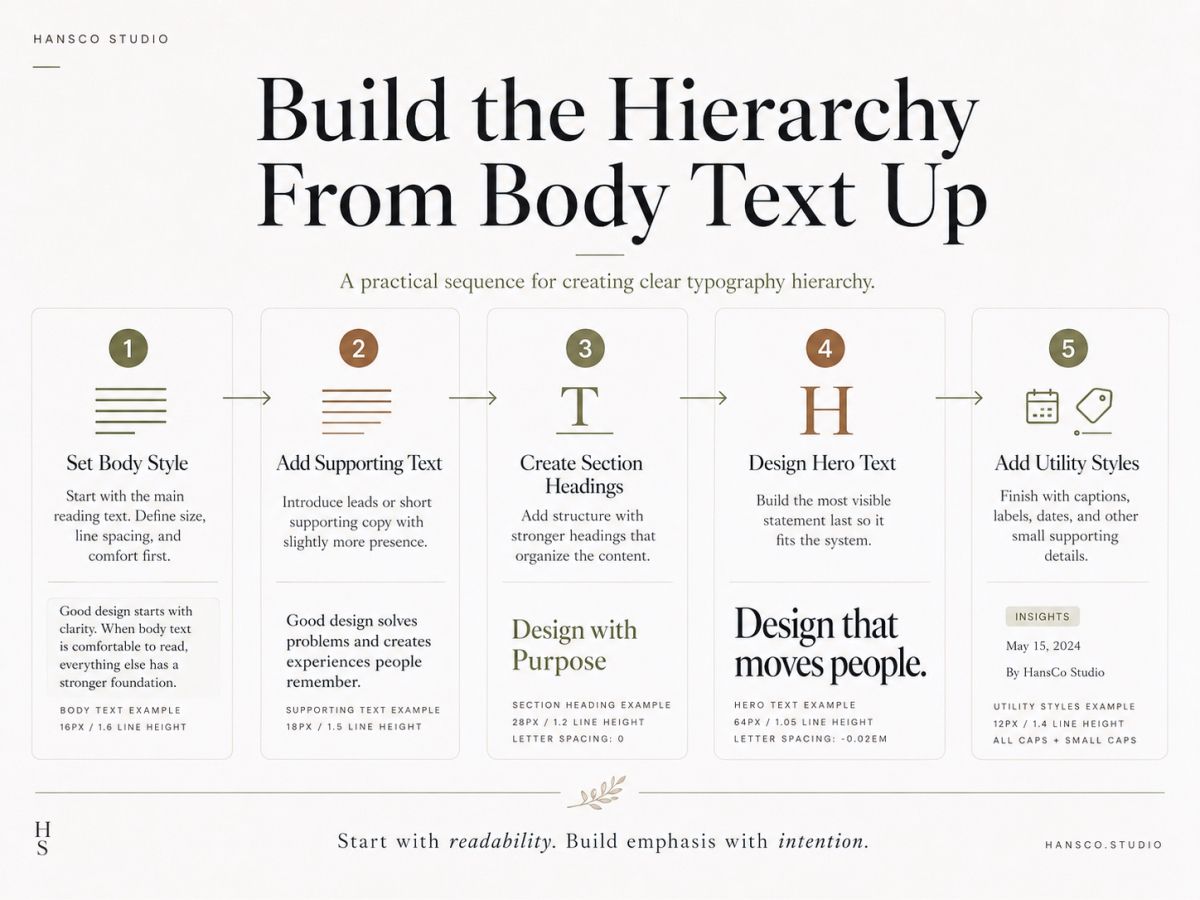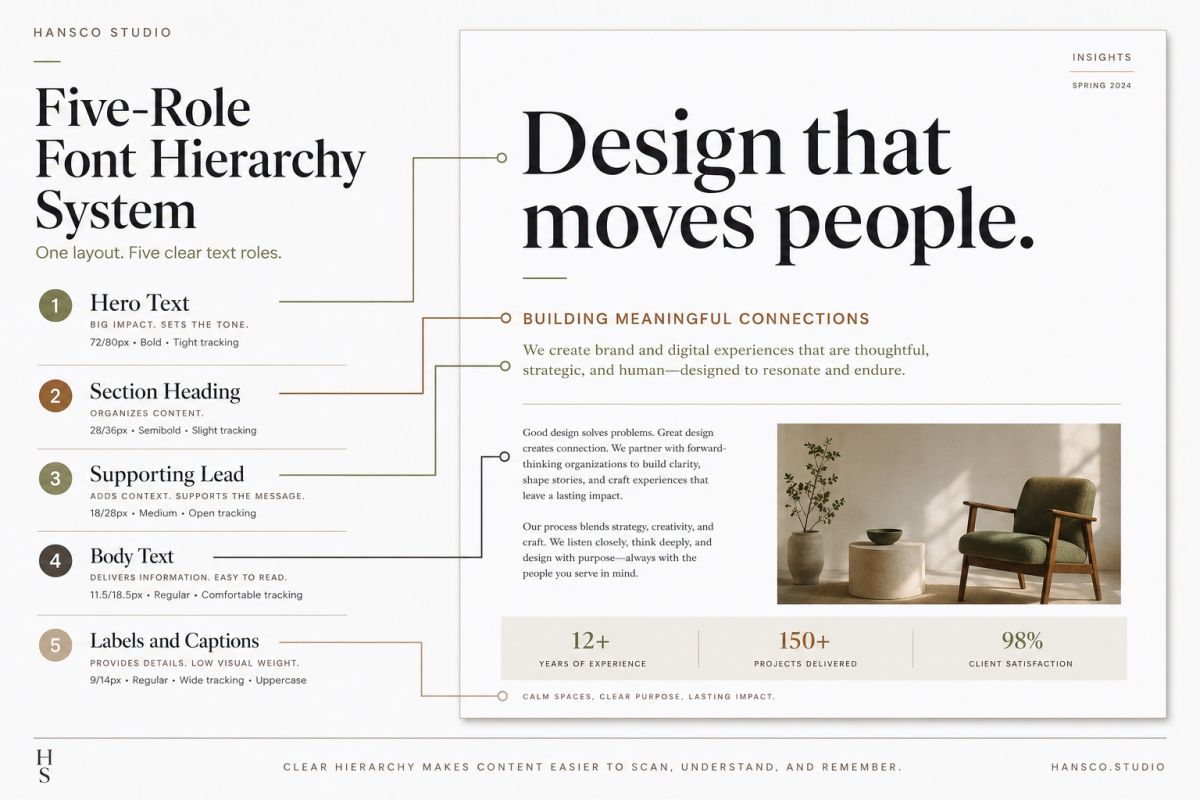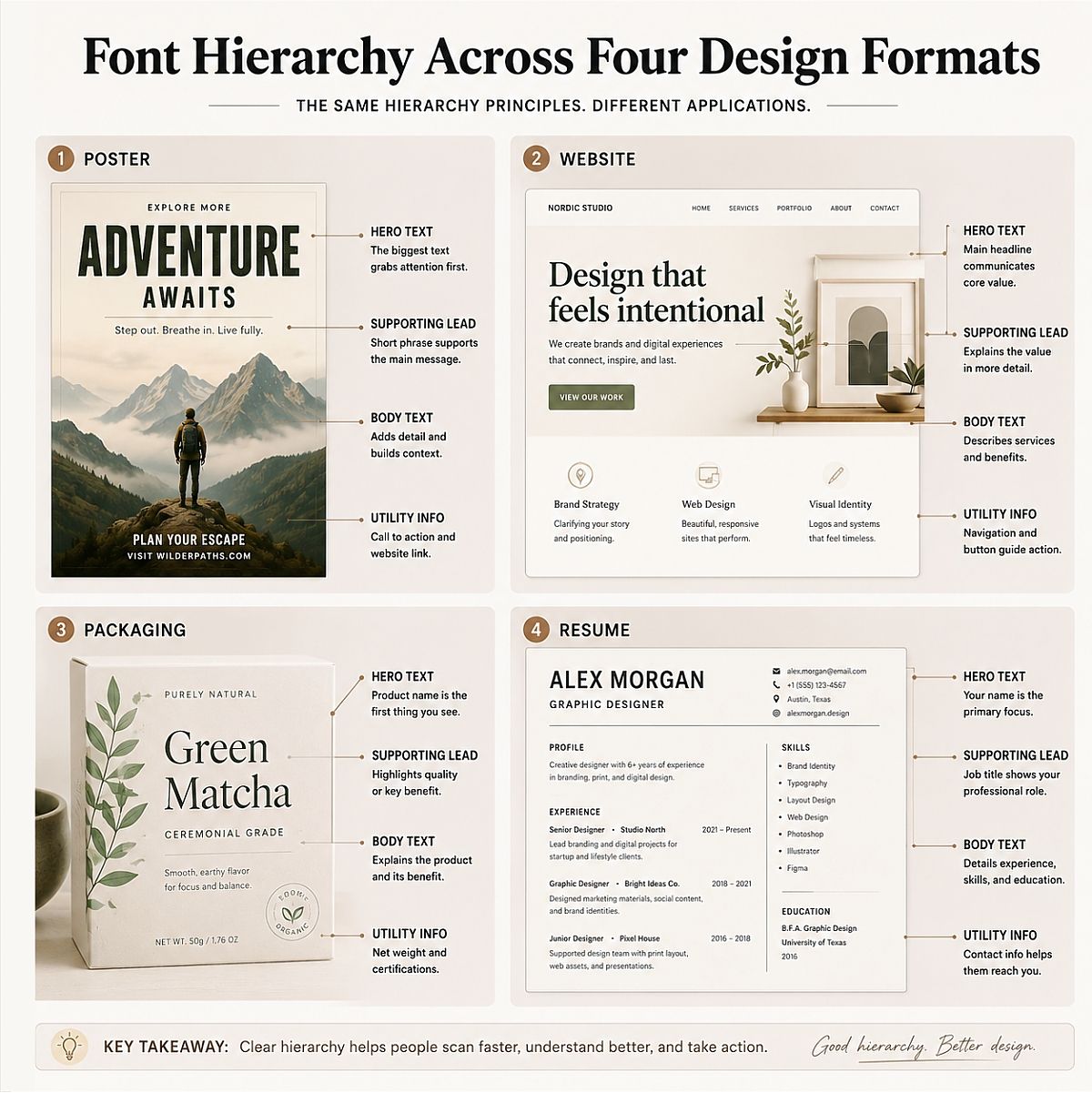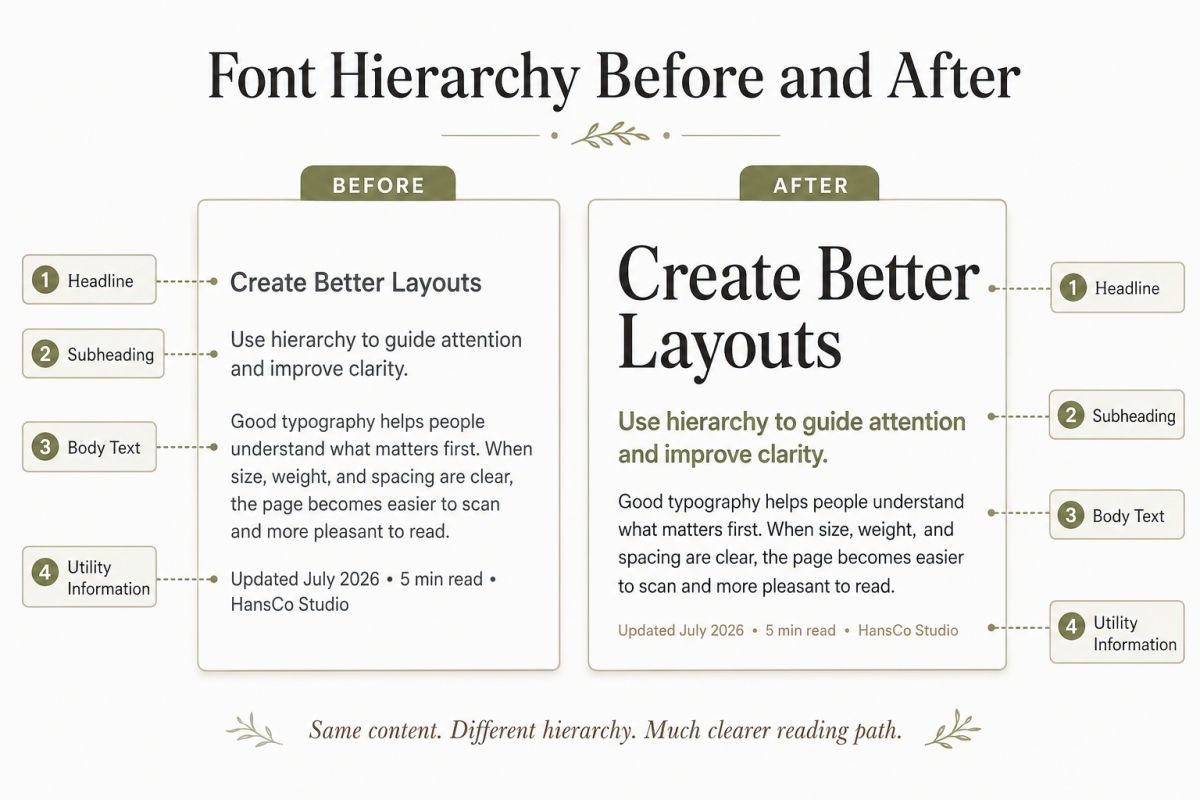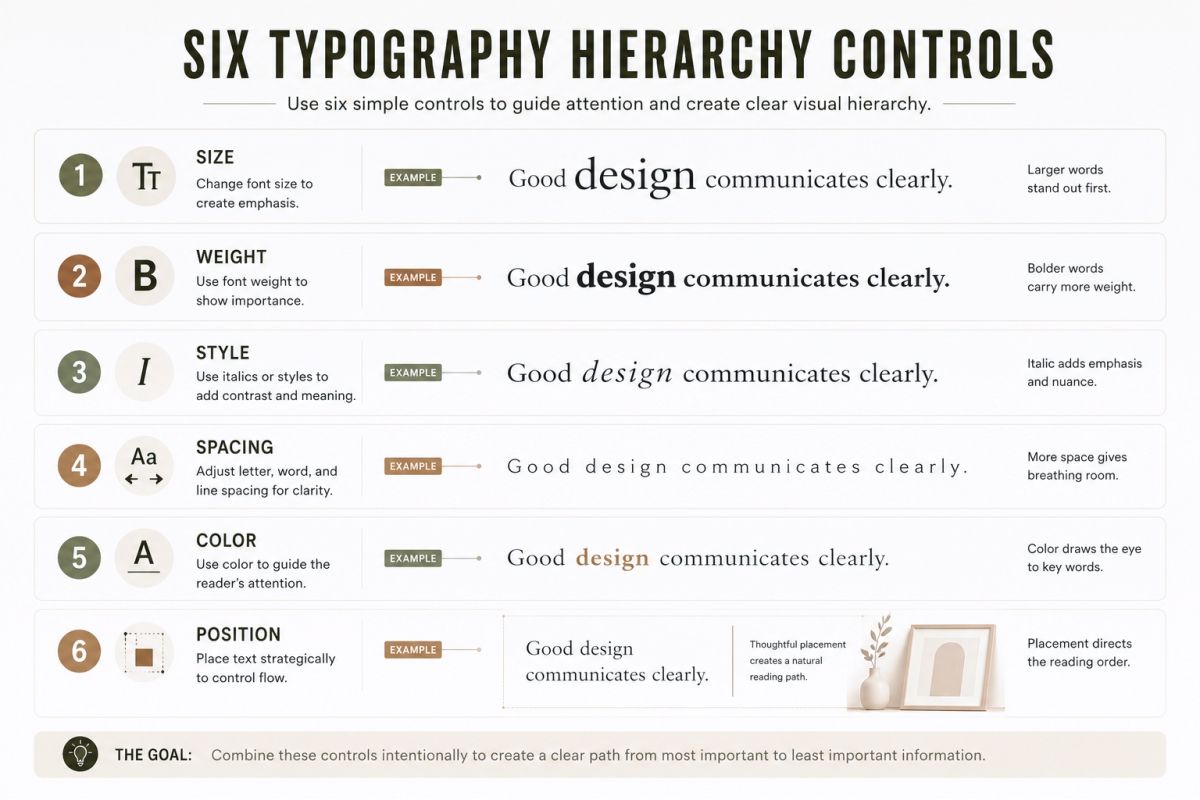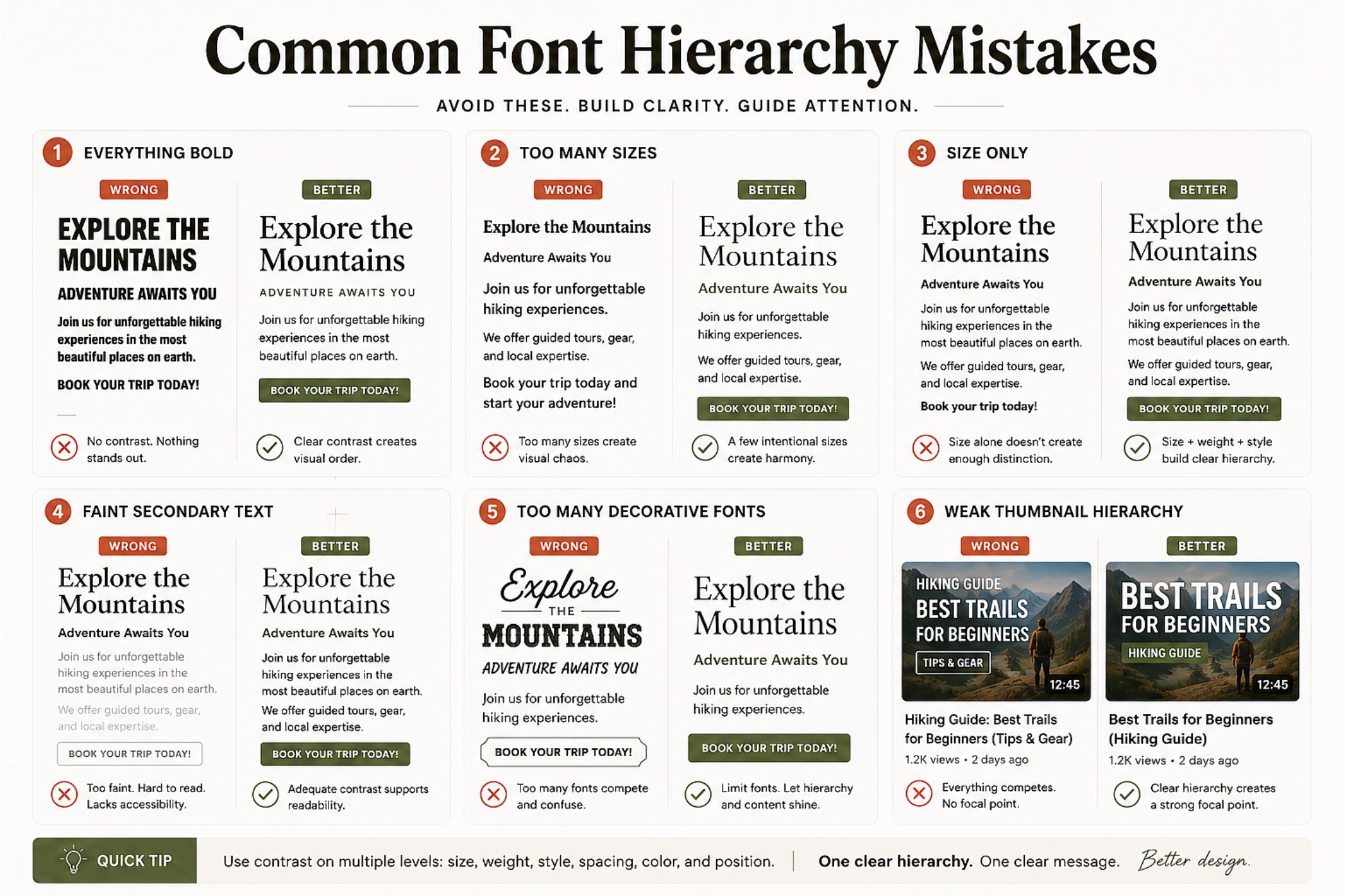
Font Hierarchy in Design: A Simple Guide for Cleaner Layouts
A beautiful font does not automatically create a beautiful layout.
You can choose an elegant serif, a clean sans serif, and a stylish display font. Yet the design may still feel confusing.
The problem is often not the fonts themselves.
It is the relationship between them.
Font hierarchy in design determines which text people notice first, what they read next, and which details they can leave until later. It turns separate pieces of text into a clear visual journey.
When hierarchy works, a layout feels easy to understand.
When it does not, every sentence seems to compete for attention.
In this guide, I will show you how to build a practical font hierarchy for websites, posters, packaging, social media graphics, resumes, and other creative projects. You will also learn how to create contrast without filling your layout with unnecessary font styles.
Font Hierarchy In Design A Simple Guide For Cleaner Layouts Font Hierarchy Comparison Before And After
What Is Font Hierarchy in Design?
Font hierarchy is a system for showing the relative importance of different pieces of text.
It helps your audience recognize:
• Where to begin
• What the main message is
• Which information supports that message
• What action to take
• Which details are optional or secondary
The Google Fonts Knowledge glossary describes hierarchy as the overall structure of a document and the relationship between elements within the text.
That relationship matters more than any individual font size.
A headline does not feel important simply because it is large. It feels important because it is visually stronger than the text around it.
This means hierarchy is always relative.
A 36-point headline may look dominant in a small brochure. The same size may feel quiet on a large poster. A medium-weight subtitle may stand out against light body text but disappear when placed under an extra-bold title.
You are not designing isolated text styles.
You are designing contrast between roles.
Why Font Hierarchy Makes a Layout Feel Cleaner
A clean layout is not necessarily an empty layout.
It is a layout where every element has a clear job.
Without hierarchy, your audience has to work out the reading order themselves. They pause. They scan backward. They may miss an important date, price, feature, or instruction.
Strong hierarchy reduces that effort.
It helps you communicate faster because people can understand the structure before reading every word.
This is especially useful when you are designing:
• A landing page with several sections
• A poster that must be understood from a distance
• Product packaging with limited space
• A social media carousel that people scan quickly
• A resume that needs to communicate experience clearly
• An invitation containing names, dates, venues, and supporting details
• A printable product that customers may view as a small marketplace thumbnail
Good hierarchy also makes a design feel more polished.
The audience may not consciously identify the font sizes, line spacing, or weights you used. They simply feel that the information is easier to follow.
Think About Reading Order Before Choosing Fonts
A common mistake is opening the font menu too early.
You find a dramatic typeface. Then you build the layout around it.
This can work for an expressive poster, but it often creates problems in practical designs. You may end up forcing important content into a font that was never designed for that role.
I prefer to begin with the content.
Before selecting a font, divide the information into three broad groups.
Primary Information
This is the message that should be understood first.
It may be:
• A product name
• An event title
• A campaign message
• A person’s name
• A page headline
• A strong quote
Supporting Information
This gives the primary message context.
It may include:
• A short description
• A product benefit
• A subtitle
• A role or profession
• An event theme
• A section introduction
Utility Information
This helps the audience take action or understand practical details.
Examples include:
• Dates
• Prices
• Locations
• Button labels
• Contact information
• File specifications
• Legal notes
• Product sizes
Utility information is often smaller, but that does not mean it is unimportant.
A small date on an invitation may be more functionally important than a large decorative phrase. A price may need less visual drama than a product name, but it still needs to be easy to find.
This is why visual prominence and practical importance are not always the same thing.
A Simple Five-Role Font Hierarchy
You do not need ten different text styles to create a sophisticated layout.
For most projects, five roles are enough.
Font Hierarchy In Design A Simple Guide For Cleaner Layouts Five Role Font Hierarchy System
1. Hero or Display Text
This is the strongest typographic voice in the design.
It is usually used for:
• Main headlines
• Product names
• Campaign phrases
• Cover titles
• Event names
Hero text can be large, bold, condensed, decorative, italic, or highly expressive. However, it should be used selectively.
When every sentence becomes hero text, nothing feels like the hero.
2. Section Heading
Section headings divide longer content into manageable parts.
They should be easy to locate without competing with the main title.
You can differentiate them through:
• A smaller size
• A medium or semibold weight
• A different case style
• More space above the heading
• A restrained accent color
Section headings are especially useful in websites, reports, resumes, guides, brochures, and presentation slides.
3. Subheading or Supporting Lead
A subheading creates a bridge between the headline and the body text.
It may explain the promise of a page, summarize a section, or introduce an important supporting idea.
This level often works best when it is quieter than the heading but more noticeable than the body copy.
You might use:
• A slightly larger size than the body
• A lighter font weight
• A wider line height
• A muted color
• An italic or alternate style
4. Body Text
Body text carries most of the information.
It should not be the most visually exciting part of the layout. It should be the easiest to read.
This is where legibility, spacing, and line length matter more than personality.
A decorative display font may look impressive in a title, but it can become tiring across several paragraphs. Use a text-friendly serif or sans serif for longer reading.
5. Labels, Captions, and Utility Text
This level includes small supporting elements such as:
• Captions
• Categories
• Navigation labels
• Dates
• Product variants
• Image credits
• Form instructions
• File details
Small text needs restraint.
Avoid making it extremely light, tightly spaced, or low contrast. A caption should look secondary without becoming difficult to read.
This role-based approach is similar to the way Material Design organizes typography into functional categories such as display, headline, title, label, and body.
You do not have to follow that system exactly. The useful lesson is to name each role before styling it.
The Six Main Tools for Creating Hierarchy
Font size is only one hierarchy tool.
You can often create a clearer layout by using fewer size changes and stronger control over weight, spacing, and position.
Font Hierarchy In Design A Simple Guide For Cleaner Layouts Typography Hierarchy Guide Infographic
Size
Larger text usually attracts attention first.
Use size to communicate major differences in importance, not to decorate every new line.
A useful hierarchy might move from:
• Large hero title
• Medium section heading
• Smaller supporting text
• Comfortable body copy
• Compact utility text
The exact numbers depend on the format.
A mobile screen, business card, poster, and magazine spread all require different scales.
Weight
Font weight changes the density and authority of text.
Bold text feels stronger. Regular text feels neutral. Light text can feel refined or quiet.
However, weight only works when there is contrast.
Using bold for the title, headings, labels, buttons, prices, and every emphasized sentence will flatten the hierarchy. The entire layout becomes visually heavy.
Reserve the strongest weight for the elements that genuinely need it.
Style
Italic, condensed, expanded, outlined, handwritten, and all-caps styles can create distinction without a large size jump.
Use these styles as specific voices.
For example:
• Italic for an editorial introduction
• Condensed type for a compact poster title
• Handwritten type for one personal accent
• All caps for short labels
• Outline text for a decorative background layer
Avoid assigning several special styles to the same level. A bold, italic, outlined, all-caps heading usually contains more signals than it needs.
Spacing
Spacing is one of the quietest hierarchy tools.
It is also one of the most powerful.
More space above a heading tells the reader that a new section is beginning. Tighter spacing between a heading and its paragraph shows that the two elements belong together.
You can use:
• Line height
• Paragraph spacing
• Letter spacing
• Margins
• Padding
• Space between text groups
Before adding another font or color, check whether better spacing can solve the problem.
Color and Contrast
Color can separate primary, secondary, and utility information.
A dark headline may lead the design. A softer charcoal or muted brown can support body text. An accent color can highlight a category, price, or action.
Do not depend on color alone.
A hierarchy should still make sense when viewed in grayscale. This is a useful way to check whether size, weight, and spacing are doing enough work.
For digital layouts, check the official W3C guidance on text contrast. Secondary text can look quieter without becoming unreadable.
Position
The location of text affects how quickly it is noticed.
Elements near the top, center, or main visual focal point usually receive more attention. Text isolated by white space can also feel more important than text surrounded by other elements.
Position is especially influential in:
• Posters
• Packaging
• Editorial layouts
• Website hero sections
• Social media graphics
• Presentation covers
A small phrase placed in a strong position can sometimes attract more attention than a larger phrase placed at the edge.
Build Your Hierarchy From the Body Text Up
Many designers start with the biggest headline.
I often find it more practical to begin with the body copy.
The body text is usually the least flexible part of the system. It must remain readable across multiple lines, paragraphs, screen sizes, or printed pages.
Once the body works, you can build the other levels around it.
Step 1: Set a Comfortable Body Style
Choose a body font that remains clear at the required size.
Test it with real paragraphs, not one short placeholder sentence.
Look at:
• Character clarity
• Line length
• Line height
• Paragraph spacing
• Numerals
• Punctuation
• Bold and italic styles
Step 2: Create the Supporting Level
Make the subtitle or lead text slightly more prominent.
You may increase its size, change its weight, or give it a softer color. It should feel connected to the body while carrying more emphasis.
Step 3: Add the Section Headings
Create a noticeable step above the supporting level.
Do not judge the heading by itself. View it together with the paragraphs before and after it.
Step 4: Design the Main Headline
The headline can now become the most expressive level.
Because the supporting system already works, you can give the hero text more personality without sacrificing the rest of the layout.
Step 5: Add Utility Styles Last
Create small styles for captions, dates, labels, and supporting details.
Keep these consistent. Do not create a new caption style every time a small element appears.
Font Hierarchy In Design A Simple Guide For Cleaner Layouts Build The Hierarchy From Body Text
How Much Contrast Do You Need?
The difference between levels should be clear, but it does not have to be dramatic.
Too little contrast creates a flat layout.
Too much contrast can make the design feel disconnected.
Imagine a headline that is ten times larger than the body copy. It may attract attention, but it can also make the paragraph below feel unrelated or insignificant.
A stronger system uses progressive steps.
For example:
• Hero: expressive and dominant
• Section heading: clear and structured
• Subheading: supportive
• Body: calm and readable
• Caption: quiet but visible
Each level should feel related to the next.
One simple test is to ask:
Can I identify the role of each text element without reading the words?
Replace the actual content with neutral lines or blurred shapes. You should still be able to recognize the headline, supporting text, body, and caption.
When the roles remain visible without the words, your hierarchy is doing its job.
Can You Create Hierarchy With One Font?
Yes.
In fact, one versatile font family can produce a cleaner system than several unrelated typefaces.
You can create contrast through:
• Regular, medium, semibold, and bold weights
• Roman and italic styles
• Size
• Case
• Letter spacing
• Line height
• Width variations
• Optical sizes
• Position and alignment
A one-family system often works well for:
• Minimal brands
• Professional websites
• Resumes
• Portfolios
• Editorial layouts
• Product interfaces
• Instructional content
It also makes consistency easier.
You do not have to remember which typeface belongs to each new section or platform. The family already shares the same visual structure.
The result can feel quiet, controlled, and professional.
When Should You Use Two Fonts?
A second typeface is useful when it gives the hierarchy a clearer voice.
For example, you might combine:
• A modern serif headline with a neutral sans serif body
• A bold display font with a simple supporting sans serif
• A handwritten accent with a readable serif
• A condensed title font with a wider body font
The fonts should perform different jobs.
Do not add a second font simply because the first layout feels boring. The real problem may be weak spacing, limited weight contrast, or an unclear reading order.
When you are ready to combine typefaces, see my guide to font pairing ideas. It explains how to create contrast while keeping the fonts visually compatible.
Font Hierarchy Examples Across Different Designs
The same hierarchy principles can work across many formats, but the roles will change slightly.
Font Hierarchy In Design A Simple Guide For Cleaner Layouts Font Hierarchy Across Formats Explained
Poster Hierarchy
A poster may use:
1. Event or campaign title
2. Short supporting phrase
3. Date and location
4. Call to action
5. Sponsor or legal information
The title needs distance visibility.
The practical details need easy scanning.
The legal information can remain quiet, but it must still be readable.
Website Hierarchy
A landing page may use:
1. Small category or eyebrow label
2. Main page headline
3. Supporting paragraph
4. Call-to-action button
5. Section headings
6. Feature descriptions
7. Captions or metadata
The hierarchy should guide visitors toward the main promise and the next action.
It should also adapt to smaller screens. An oversized desktop headline may need a reduced scale on mobile, while the relationship between levels should remain clear.
Packaging Hierarchy
A package may need to communicate:
1. Brand name
2. Product name
3. Product variant
4. Main benefit
5. Quantity or size
6. Ingredients or instructions
The brand does not always need to be the largest element.
For a new product, the product category may need more visibility. For an established brand, the brand name may carry more recognition.
The hierarchy should match the buying situation.
Resume Hierarchy
A resume may include:
1. Candidate name
2. Professional title
3. Section headings
4. Job titles and company names
5. Achievement bullets
6. Dates and locations
A resume hierarchy should support quick scanning.
Recruiters need to identify the candidate’s role, experience, and evidence without searching through decorative elements.
Social Media Hierarchy
A social graphic may use:
1. Hook
2. Main idea
3. Supporting explanation
4. Page number or category
5. Brand name or handle
The first level should remain understandable at thumbnail size.
Supporting text can become more detailed after the audience opens or swipes through the content.
How to Choose Fonts for a Complete Hierarchy System
When buying or downloading a font, do not evaluate only the most decorative sample.
Consider the whole system you need to build.
Check the Available Weights
A font family with several useful weights gives you more control.
You may need:
• Regular for paragraphs
• Medium for labels
• Semibold for section headings
• Bold for major emphasis
You do not always need every possible weight. You need enough separation between the roles.
Test Small Sizes
Some fonts look beautiful in a large product preview but lose clarity when reduced.
Test:
• Lowercase letters
• Similar letterforms
• Numbers
• Punctuation
• Tight text areas
• Light colors
• Printed samples
This is particularly important when the font will be used for packaging, resumes, captions, or interface labels.
Look at the Complete Character Set
Real projects require more than a stylish alphabet.
Check whether the font includes:
• Numerals
• Currency symbols
• Punctuation
• Accented characters
• Ligatures
• Alternate letters
• Multiple languages
A hierarchy can break when dates, prices, or supporting text must suddenly use a different font because the main family lacks essential characters.
Separate Display and Text Roles
A display font is designed to create impact.
A text font is designed to remain comfortable across longer reading.
Some families can handle both roles. Others should be used selectively.
Do not force a decorative font into body copy simply because you want the whole layout to feel consistent. Consistency does not mean every element must look identical.
Review the License
Before using a font in a commercial design, check whether the license covers your intended application.
The requirements may differ for:
• Logos
• Client work
• Websites
• Apps
• Digital products
• Templates
• Merchandise
• Packaging
• Advertising
The best type system is not only visually suitable. It must also be practical for the project.
You can explore more typography guidance and font inspiration in the HansCo Studio Fonts & Typography collection.
Common Font Hierarchy Mistakes
Font Hierarchy In Design A Simple Guide For Cleaner Layouts Typography Mistakes And Better Practices 1
Making Everything Bold
Bold text works because regular text exists around it.
When everything is bold, the emphasis disappears.
Use strong weights for a limited number of roles.
Using Too Many Font Sizes
Small, inconsistent size changes can make a layout feel accidental.
Instead of using 17, 19, 21, 23, and 25 pixels, create a smaller set of clearly differentiated styles.
Consistency is often more valuable than precision.
Depending Only on Size
A large headline cannot solve weak spacing, poor contrast, or confusing placement.
Combine size with weight, position, and white space.
Making Secondary Text Too Faint
Secondary does not mean invisible.
Very light gray text, thin weights, and tiny sizes may look elegant on a large design canvas but fail on real screens or printed products.
Using Decorative Fonts for Every Role
Expressive fonts are strongest when they have space to stand out.
Pair them with quieter supporting typography rather than repeating the same decorative voice across every paragraph.
Creating a New Style for Every Element
A label does not need a unique font treatment simply because its wording is different.
Reuse established roles.
A strong hierarchy is a system, not a collection of individual styling decisions.
Ignoring Mobile and Thumbnail Views
Hierarchy must survive reduction.
Check your website on a small screen. View your product listing as a marketplace thumbnail. Zoom out from your poster or social graphic.
The most important message should remain recognizable.
A Practical Font Hierarchy Workflow
Use this process whenever you begin a typography-heavy design.
1. List all the text content.
2. Sort it by communication priority.
3. Assign each item a functional role.
4. Choose a readable body font.
5. Build the supporting levels.
6. Create the main headline style.
7. Add a second font only when it has a clear purpose.
8. Adjust spacing between related and unrelated groups.
9. Test contrast in grayscale.
10. Check the design at full size, thumbnail size, and final output size.
11. Remove any style that does not have a specific job.
12. Save the final roles as reusable text styles.
Naming your styles can make the system easier to maintain.
For example:
• Display
• Heading
• Subheading
• Body
• Label
• Caption
These names describe purpose rather than appearance. That makes them easier to reuse when the layout changes.
A Quick Font Hierarchy Stress Test
Before exporting your design, ask these questions:
• Where does my eye go first?
• Is that the correct starting point?
• Can I identify the next reading step?
• Are related elements visually grouped?
• Is the body text comfortable to read?
• Does the smallest text remain clear?
• Have I used too many bold or decorative styles?
• Does the hierarchy still work in grayscale?
• Does it work as a thumbnail?
• Can I remove one style without losing clarity?
The last question is especially useful.
If removing a font style makes no meaningful difference, that style may not be necessary.
Cleaner layouts often come from subtraction.
Frequently Asked Questions
What Is Font Hierarchy in Design?
Font hierarchy in design is the visual system used to communicate the relative importance and reading order of text. It can be created through size, weight, style, spacing, color, contrast, and position.
How Many Font Sizes Should a Design Use?
There is no universal number, but most layouts benefit from a limited set of repeatable sizes. A simple project may need three levels, while a website or editorial system may need five or six.
The important point is that each size should have a clear role.
Can I Create Font Hierarchy With One Typeface?
Yes. You can use one typeface family and create hierarchy through different weights, sizes, styles, spacing, and positions. This approach often produces a clean and consistent design.
What Is the Difference Between Font Pairing and Font Hierarchy?
Font pairing is the process of choosing typefaces that work well together.
Font hierarchy determines how those typefaces are assigned to different information levels.
A design can have a beautiful font pairing but still have weak hierarchy if the reading order is unclear.
Should Every Heading Be Bold?
No.
A heading can stand out through size, spacing, color, position, capitalization, or a different typeface. Bold weight is only one option.
What Is the Best Way to Test Typographic Hierarchy?
View the design from a distance, zoom out, convert it to grayscale, and check it at thumbnail size.
You should be able to recognize the reading order before reading every word.
Final Thoughts
Font hierarchy is not about making one line large and everything else small.
It is about creating intentional relationships.
Every font size, weight, color, and spacing decision should help your audience understand what to notice, what to read, and what to do next.
Start with the information.
Give each text element a role.
Build the body style first. Add contrast gradually. Use expressive fonts where they create the most value. Then remove any styling that does not improve the reading experience.
When the hierarchy is clear, the layout does not need to shout.
It simply makes sense.